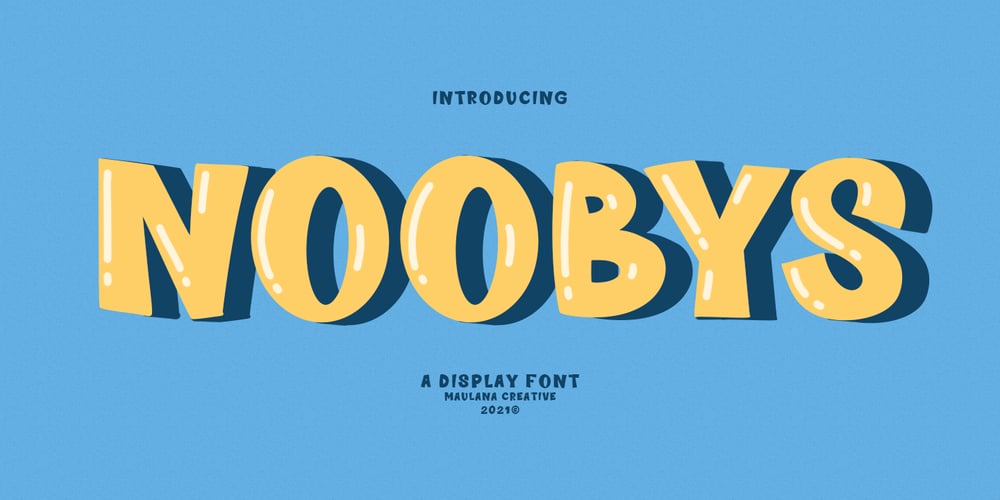
Noobys Display Font Family was designed by Gilang Maulana and published by Maulana Creative. Noobys Display contains 1 styles and family package options. Noobys is a fun decorative display font with natural hand drawn, clean stroke, uprights and fun character. To give you an extra creative work. Noobys font support multilingual more than 100+ language. This font is good for logo design, Social media, Movie Titles, Books Titles, a short text even a long text letter and good for your secondary text font with sans or serif. Make a stunning work with Noobys font. Cheers, MaulanaCreative